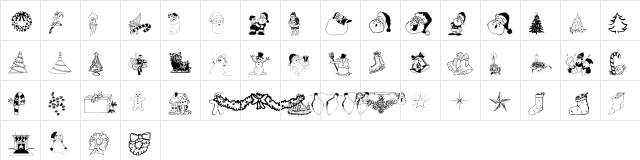
wmchristmas1 Regular
Design Context for wmchristmas1
wmchristmas1 is a composed and adaptable typeface that performs quietly and consistently across a wide range of design contexts.